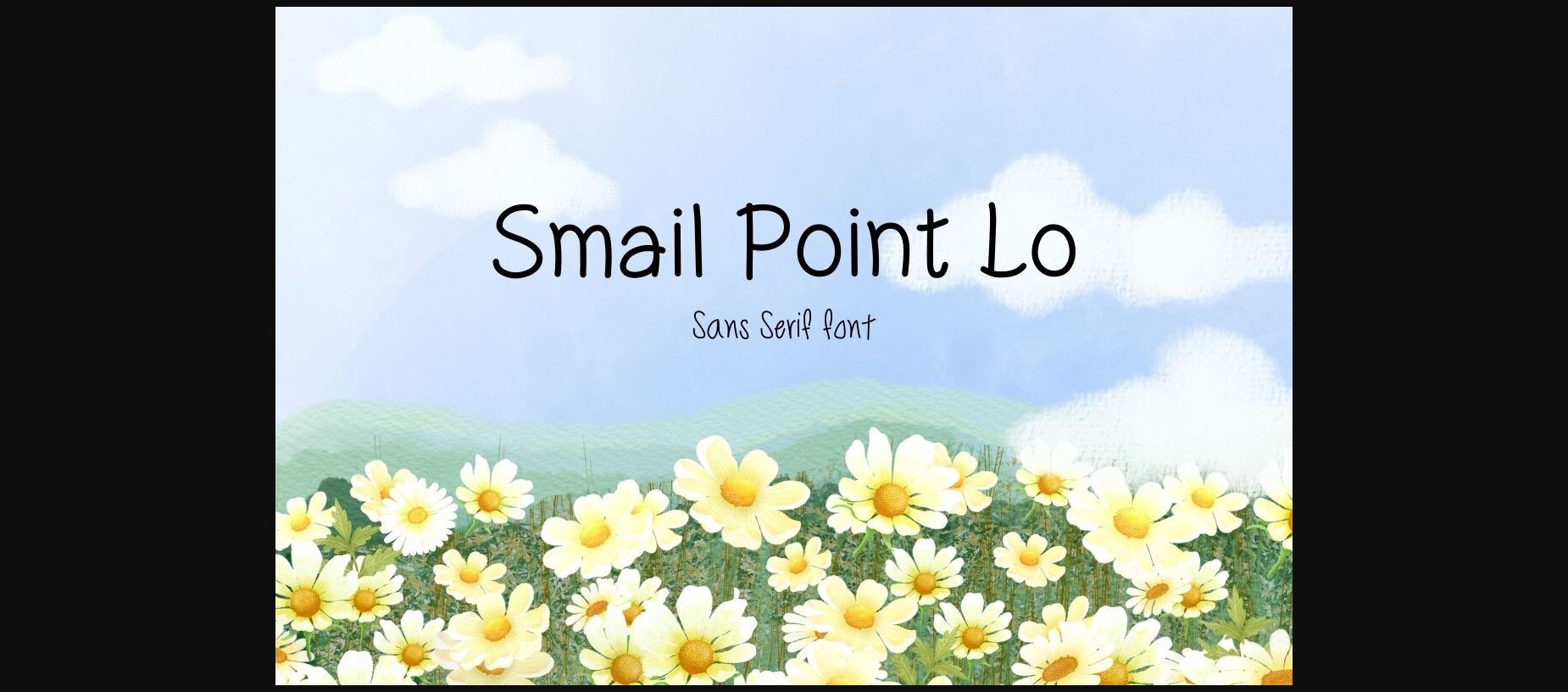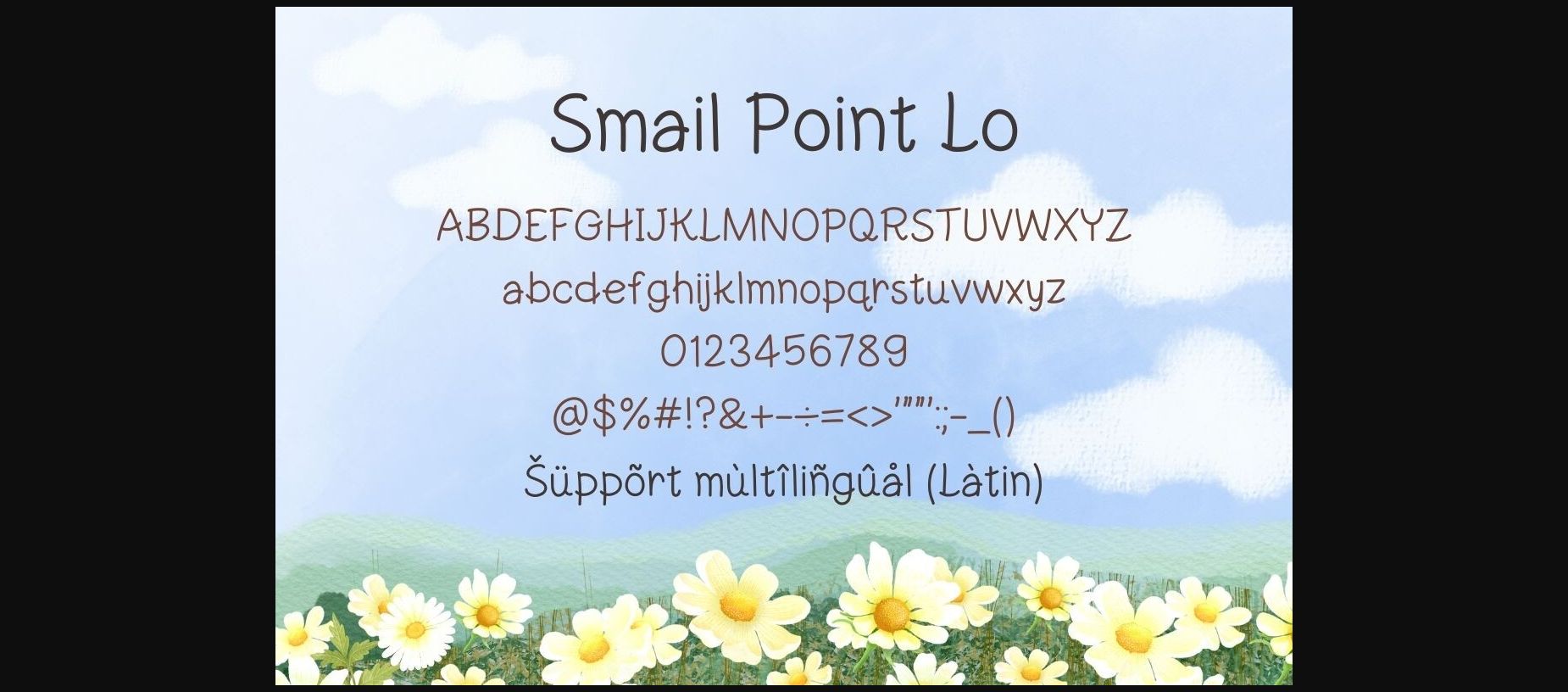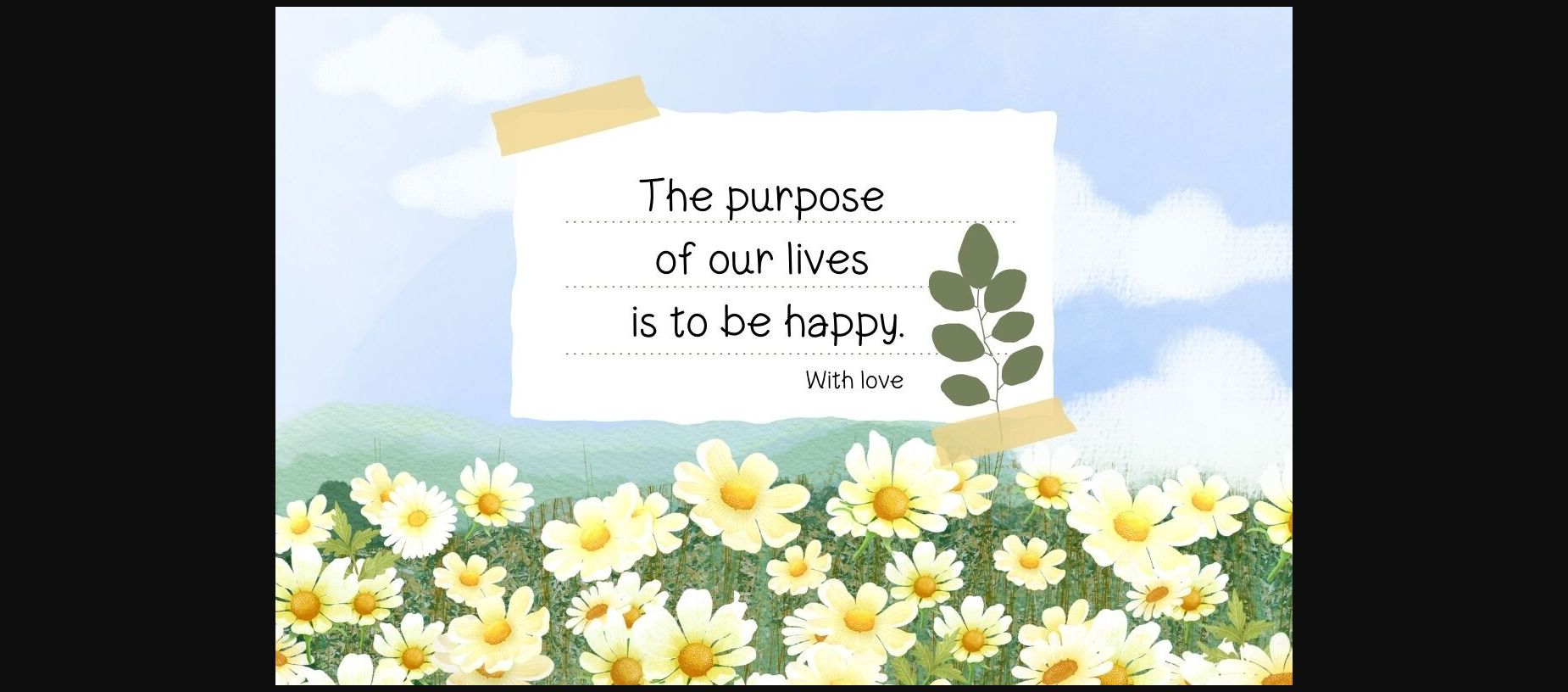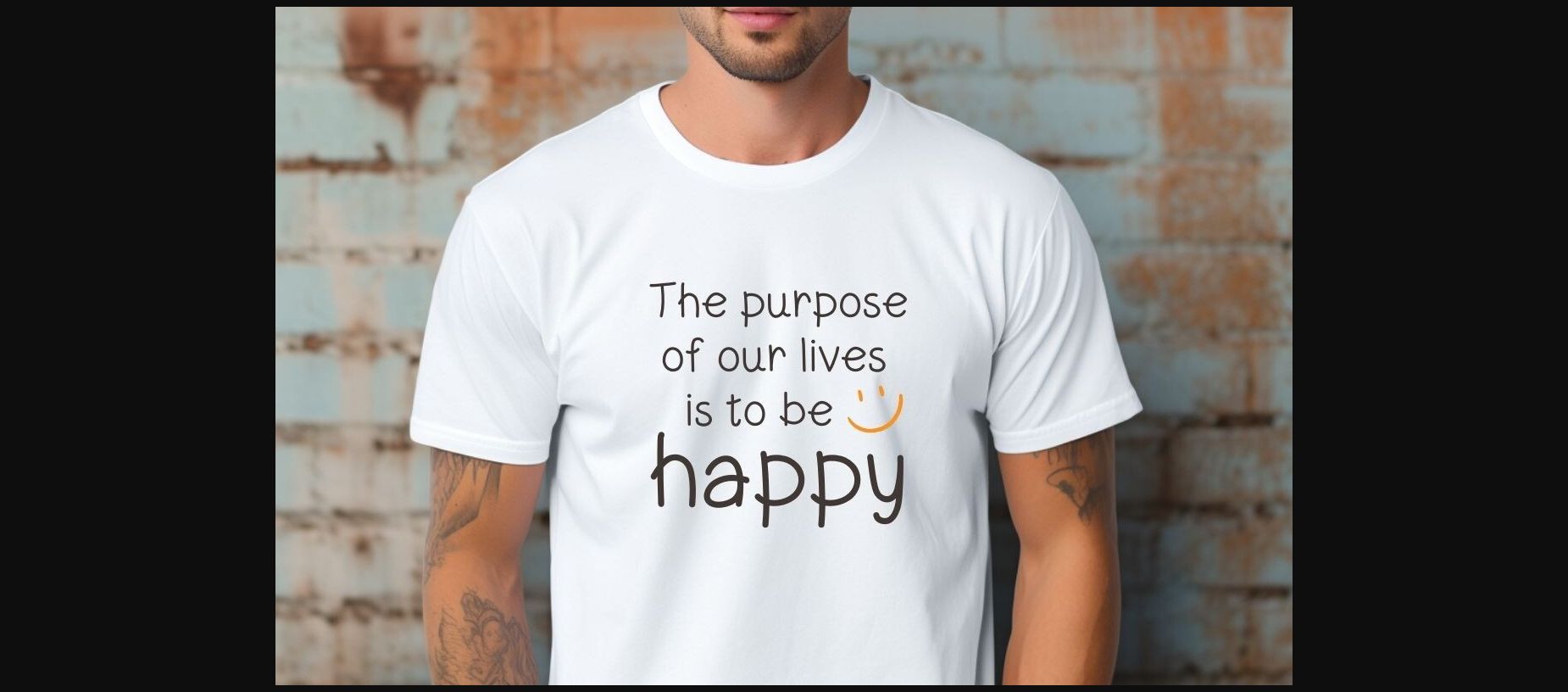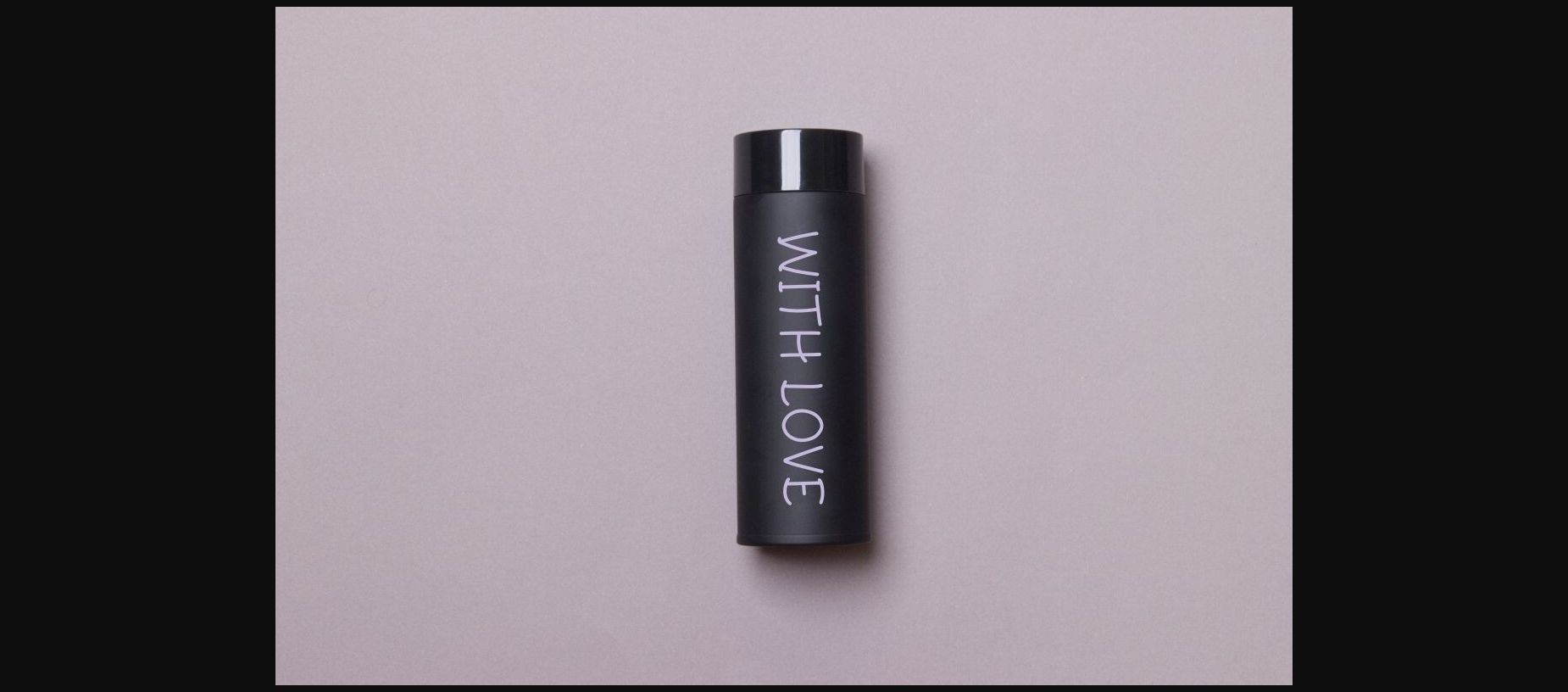
HomeSans Serif FontsSmail Point Lo Font Sans Serif Fonts Smail Point Lo Font FacebookXPinterestWhatsApp 1 of 7 ... Smail Point Lo Font Poster 2... Smail Point Lo Font Poster 3... Smail Point Lo Font Poster 4... Smail Point Lo Font Poster 5... Smail Point Lo Font Poster 6... Smail Point Lo Font Poster 7... About Smail Point Lo Font Smail Point Lo is a cute and fun sans serif handwritten font. It would be an awesome addition to your fun projects and creative designs. DOWNLOAD NOW People also explored Parent Font Westly Rider Font Absolute Font Legends Font Faithfull Barbie Chubby Font Ghifari Font Hu Sansans Font Marquita Precious Font 442 0 TagsSmail Point Lo Font Previous articleFruit Juice Lofu FontNext articleQuitle Font LEAVE A REPLY Cancel reply Comment: Please enter your comment! Name:* Please enter your name here Email:* You have entered an incorrect email address! Please enter your email address here Website: Save my name, email, and website in this browser for the next time I comment. Personal Use Free JVNE Smoothdron Personal Use Free Read more about this font Gaboed Personal Use Free Read more about this font Child Witch Personal Use Free Read more about this font Abberancy Personal Use Free Read more about this font BLOG Exploring Font Trends Shaping Communication in the Digital Era Fonts, like all design elements, are subject to trends. They play a crucial role in communicating a brand's personality,... Where to Buy American Fonts Online in 2024 Free Fonts Risk: Why Free Fonts Can Be Dangerous for Designers Free vs Paid Fonts: Why Investing in Premium Fonts Is Worth It